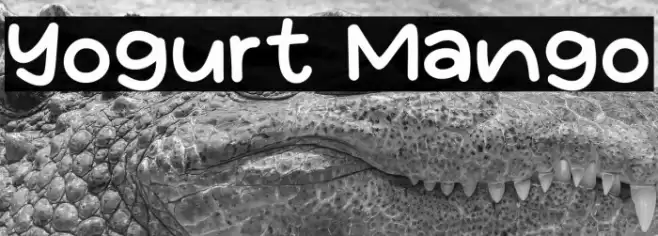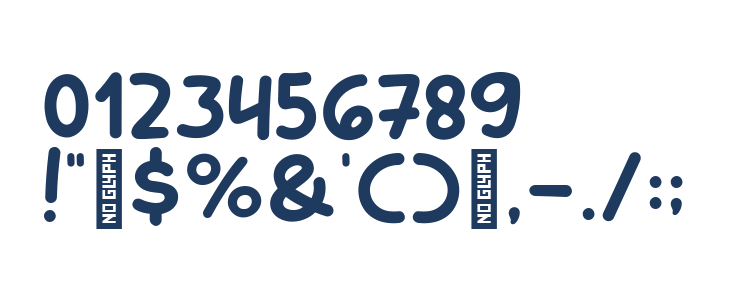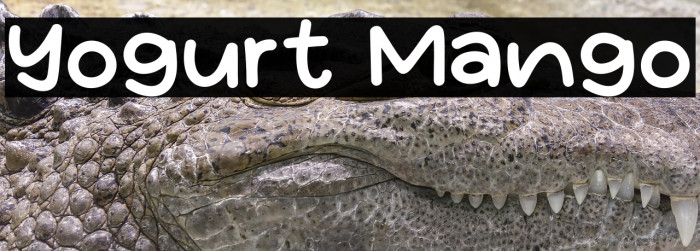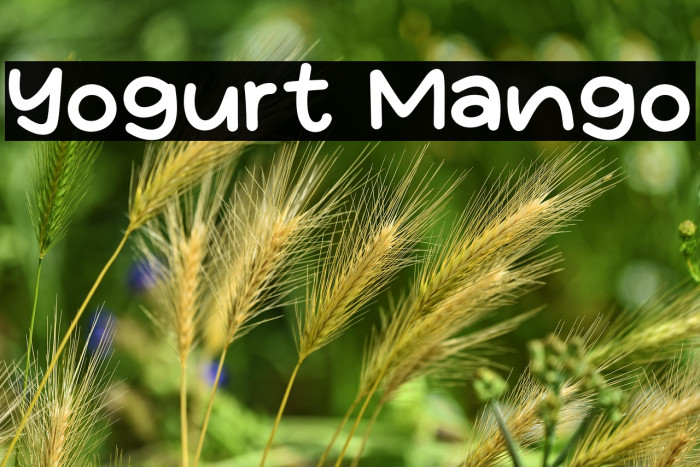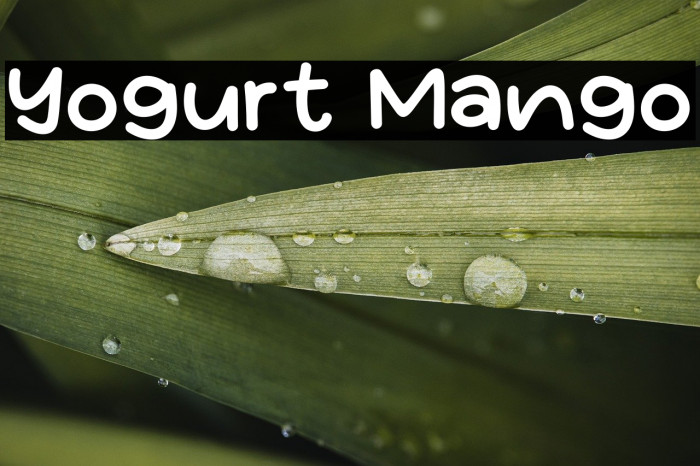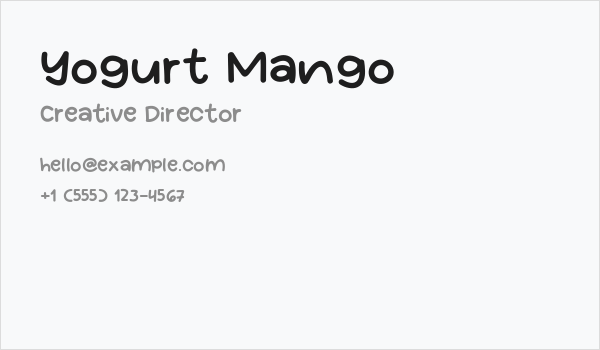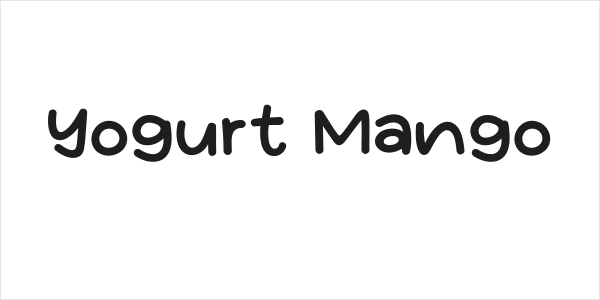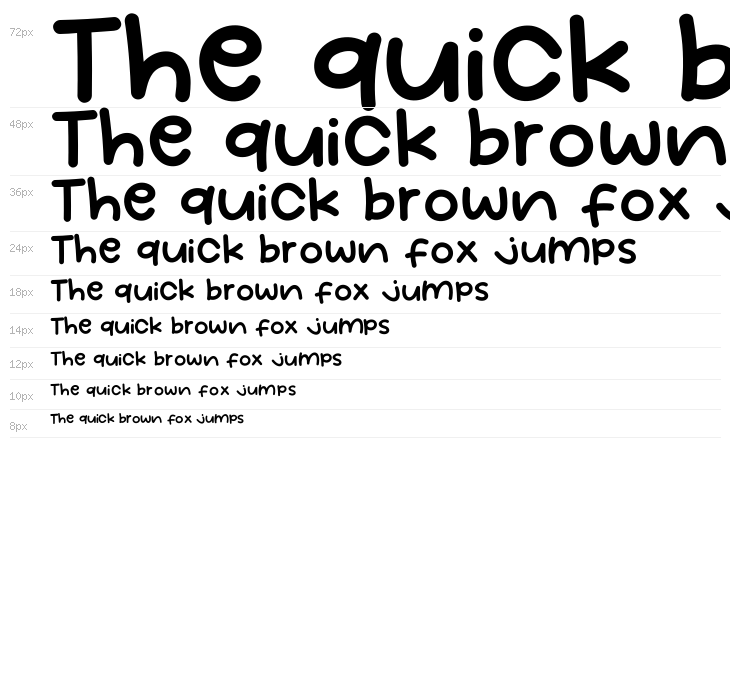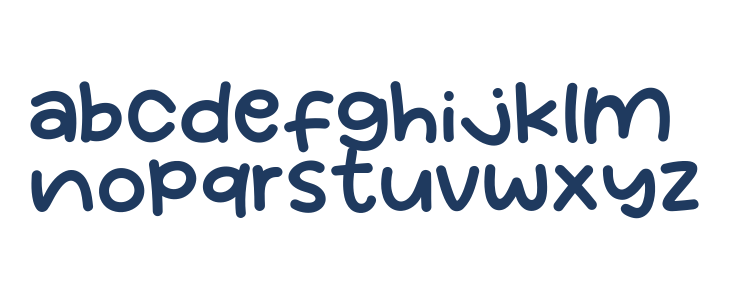
Yogurt Mango Font
Yogurt Mango Description
This playful and rounded font exudes a friendly and approachable vibe, characterized by its smooth, curvy lines and consistent stroke width. The letters are bold and slightly whimsical, giving off a casual and informal feel. The uppercase and lowercase letters maintain a uniform style, with a slight bounce that adds to its charm. Numbers and special characters are crafted with the same playful touch, making this font versatile for various creative applications. Its overall appearance is both modern and fun, making it suitable for projects that require a lighthearted and engaging aesthetic.
A playful, rounded font with smooth lines and a friendly vibe from Cartoon fonts.
- Proposed Projects: Ideal for children's books, playful branding, casual invitations, and creative posters.